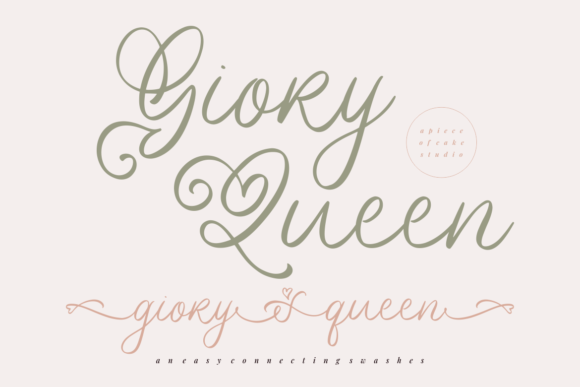
Unlock the Magic of Handwritten Charm with Giory Queen Font
Have you ever found yourself staring at a blank page, struggling to find the perfect words to express your feelings? Whether it’s a heartfelt love letter or a birthday wish, the right font can make all the difference. That’s where Giory Queen Font comes in – a beautiful, delicate handwritten font designed to add a touch of romance to your creative projects.
Perfect for designers looking to add a personal touch to their work, Giory Queen Font is incredibly versatile. From greeting cards to headlines, its elegant script can elevate any design and make it stand out. What makes Giory Queen Font truly valuable is its ability to convey emotion and sentiment, making it a go-to choice for designers who want to create truly memorable experiences.
Giory Queen Font Key Features
- Font Family: Giory Queen
- Character Count: 1000+ glyphs (including Latin, Cyrillic, and Greek alphabets)
- Unique Characteristics: Giory Queen is a script font with a regal, elegant feel, perfect for titles, headings, and invitations.
Giory Queen Font Review
First off, I’d like to say that the Giory Queen Font has a lot going for it ✨. The elegant, cursive script style makes it perfect for adding a touch of sophistication to any design project. The font’s versatility also shines through, making it suitable for both formal and informal use.
The font’s range of weights and styles ✨ provides designers with ample options for customization. From the light, airy feel of the Thin weight to the bold, statement-making feel of the Heavy weight, there’s a Giory Queen Font style to suit every design need.
While the Giory Queen Font is a solid choice for many designers, there are some limitations to consider ⚠️:
- Some characters may not be as refined as others, particularly in the script style.
- The font’s high x-height can make it challenging to pair with fonts that have a lower x-height.
- Support for certain languages may be limited.
Overall, the Giory Queen Font is a great addition to any designer’s toolkit ✨. While it may not be perfect, its many strengths and versatility make it a solid choice for a wide range of design projects. With a little creativity and experimentation, the Giory Queen Font can add a touch of elegance and sophistication to any design.
Tips for Getting the Most Out of the Giory Queen Font
The Giory Queen font is perfect for adding a touch of elegance and sophistication to your designs. To get the most out of it, use it for:
- Formal event branding and marketing materials.
- High-end product packaging and labeling.